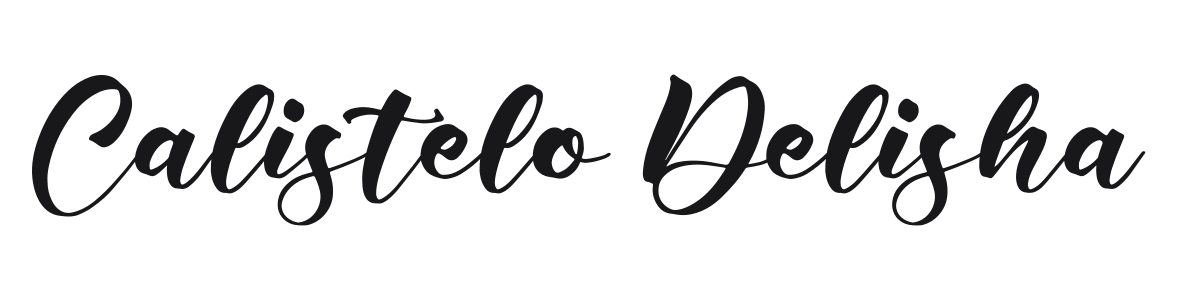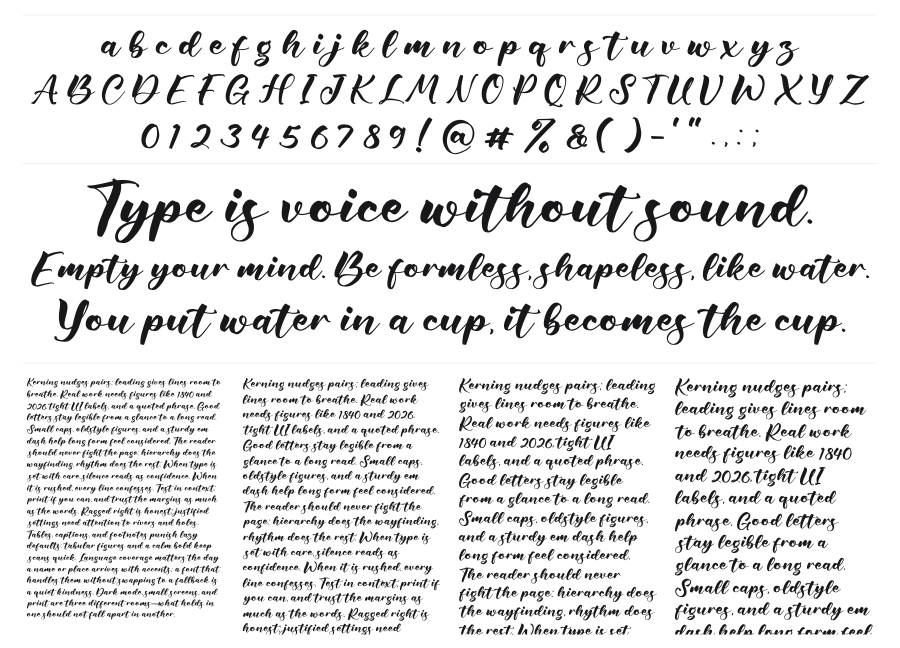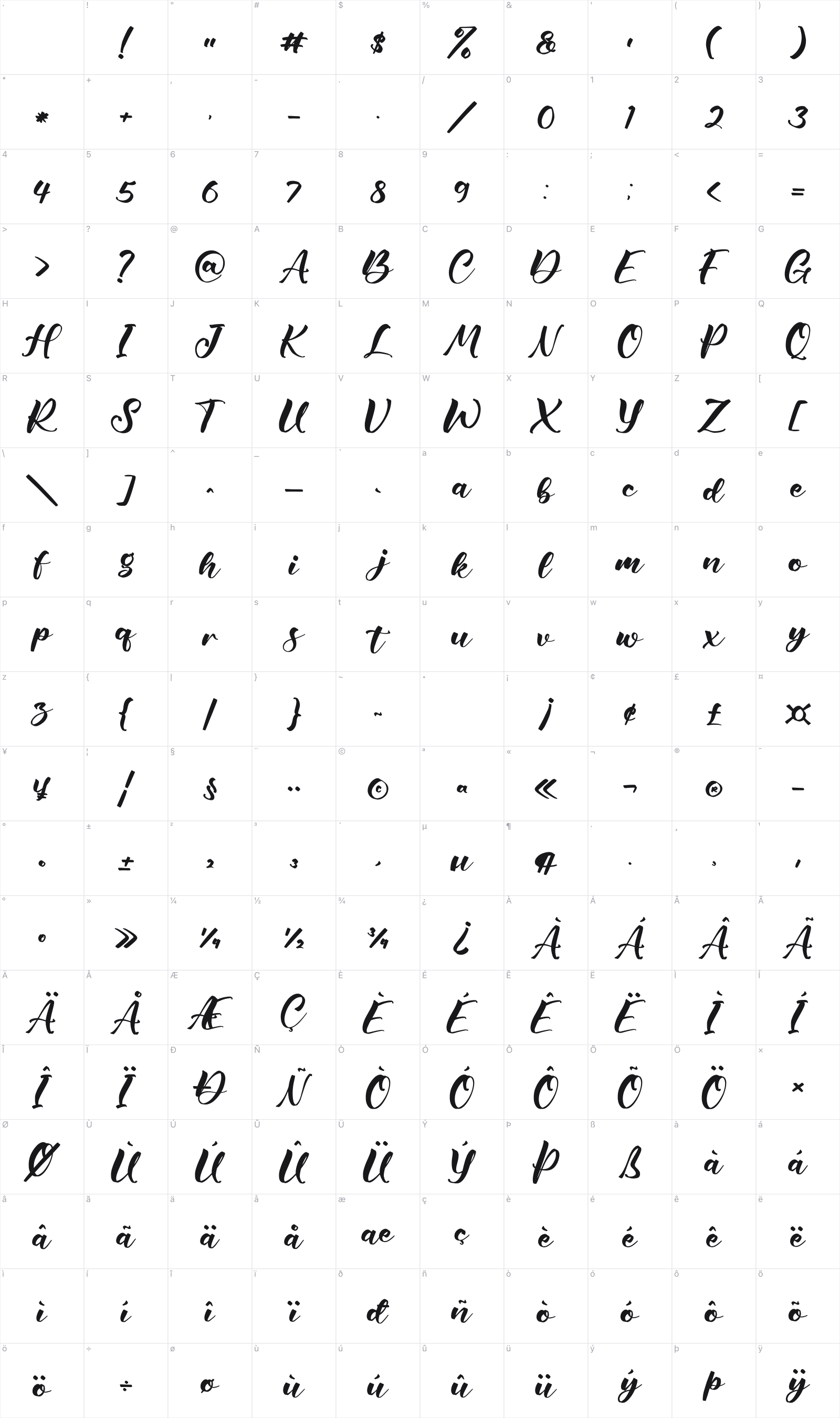
Calistelo Delisha
Calistelo Delisha is a bold contemporary brush script with lively bouncing letterforms and dramatic stroke contrast. Thick downstrokes and fine hairline upstrokes give it an energetic, hand-lettered quality, while the connected flowing rhythm keeps it polished enough for branding. It carries the warmth of hand-lettering with enough structure to work across wedding stationery, packaging, and lifestyle branding.